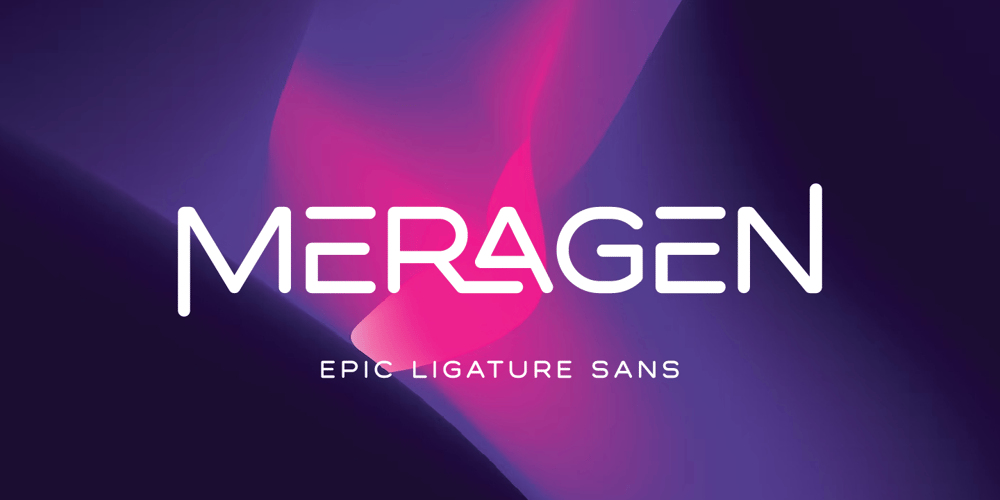
Meragen Font Family was designed by ahmad faizin and published by Variatype. Meragen contains 1 styles and family package options. Meragen is a versatile yet stylish sans-serif font that includes discretionary ligatures and stylistic alternates. Perfectly match the modern design theme for many scoops of projects such as logotype, corporate branding, poster design, business cards, headline cover, and much more.FONT FEATURES Additional Accents 67 Languages Kerning Ligatures Alternates SOFTWARE RECOMMENDATION Adobe Photoshop CC 2020 or later Adobe Illustrator CC 2020 or later